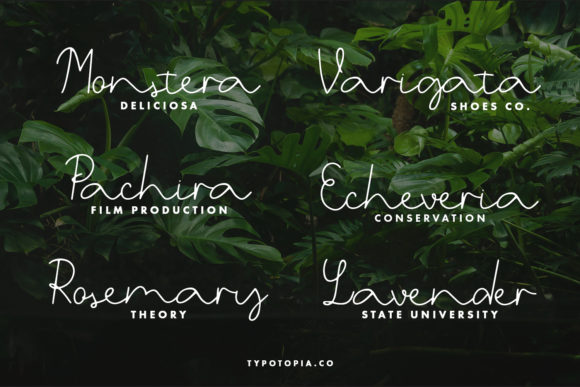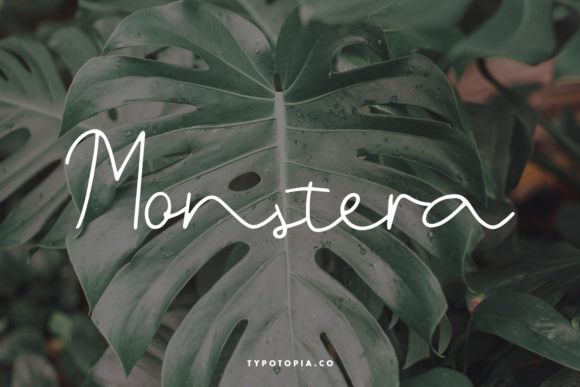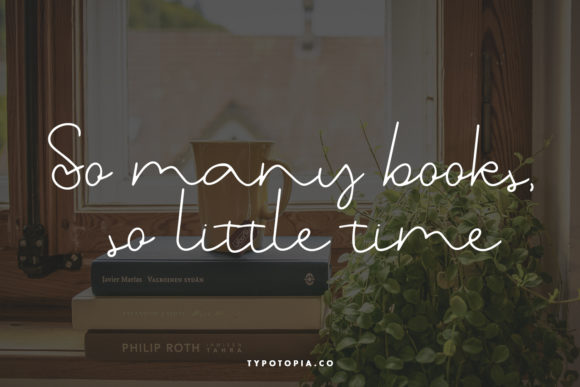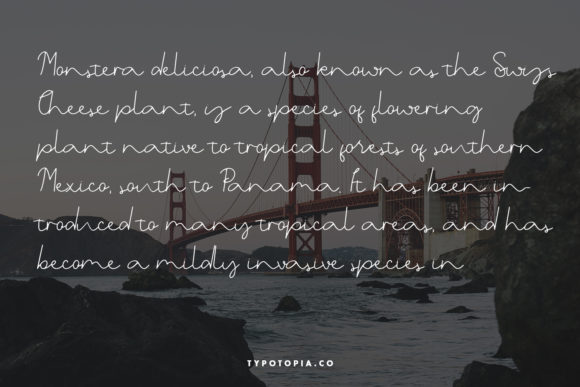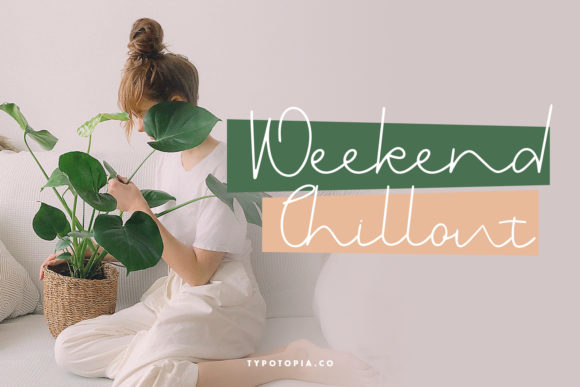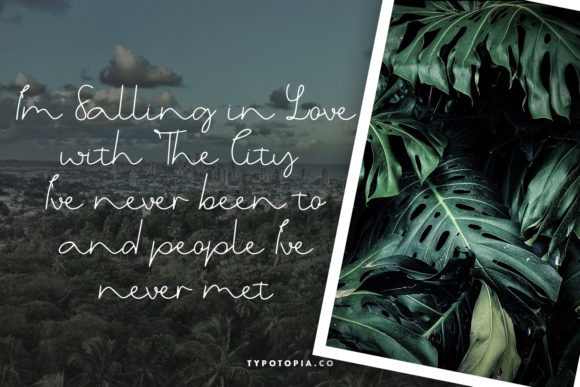
Introducing Belgia Font: The Epitome of Elegance and Timeless Style
Are you on the hunt for a font that exudes elegance, sophistication, and a touch of timeless charm? Look no further than Belgia Font, a stunning flowing handwritten font that is sure to capture your heart. With its incredibly distinct and classic style, Belgia is the perfect addition to your favorite design projects, allowing you to create truly spectacular designs that stand out from the crowd.
The Characteristics of Belgia Font
Belgia Font is described by its elegant touch, which sets it apart from other fonts in its category. Its flowing, handwritten style is both refined and sophisticated, making it an ideal choice for designers and crafters looking to add a touch of luxury to their work. The font’s classic and timeless style ensures that it will never go out of fashion, allowing you to create designs that are both contemporary and enduring.
Why Choose Belgia Font?
So, what makes Belgia Font so special? Here are just a few reasons why designers and crafters are falling in love with this beautiful font:
- Elegant and Refined: Belgia Font boasts an elegant and refined style that is perfect for creating sophisticated designs.
- Timeless Style: Its classic and timeless style ensures that your designs will remain relevant for years to come.
- Incredibly Distinct: Belgia Font has an incredibly distinct style that sets it apart from other fonts, making it perfect for creating unique and eye-catching designs.
- Versatile: This font is versatile and can be used for a wide range of design projects, from branding and advertising to packaging and more.
Using Belgia Font in Your Design Projects
Belgia Font is perfect for a wide range of design projects, including:
- Branding and Identity: Use Belgia Font to create stunning logos, business cards, and letterheads that exude elegance and sophistication.
- Advertising and Marketing: Create eye-catching advertisements, brochures, and flyers that showcase your brand’s personality and style.
- Packaging: Add a touch of luxury to your product packaging with Belgia Font, perfect for high-end products and premium brands.
- Stationery: Create beautiful stationery, including invitations, thank you cards, and more, that showcase your personal style.
Tips for Getting the Most Out of Belgia Font
To get the most out of Belgia Font, here are a few tips to keep in mind:
- Experiment with Different Sizes: Belgia Font looks stunning in a range of sizes, from large headings to smaller body text.
- Pair with Other Fonts: Try pairing Belgia Font with other fonts to create a unique and eye-catching combination.
- Use in Combination with Images: Use Belgia Font in combination with beautiful images to create stunning designs that tell a story.
| Font Name | Belgia Font |
| Author | typotopia |
In conclusion, Belgia Font is a stunning flowing handwritten font that is sure to capture your heart. With its elegant touch, timeless style, and incredibly distinct character, Belgia is the perfect addition to your favorite design projects. Whether you’re a designer, crafter, or simply someone who appreciates beautiful typography, Belgia Font is a must-have in your font collection. So why wait? Fall in love with Belgia Font today and start creating spectacular designs that stand out from the crowd!